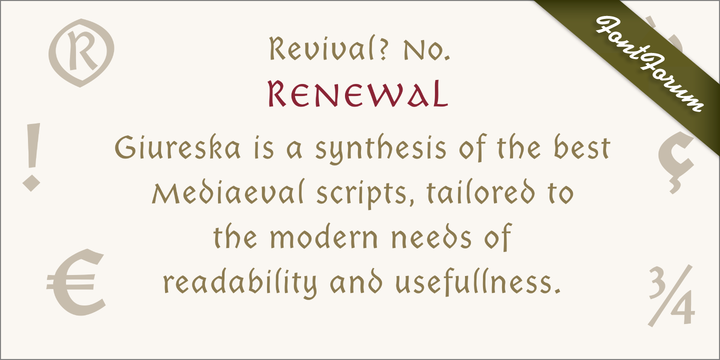
I always admired the beauty of Gothic letters, but lamented their low readability. The revivals of Gothic faces are beautiful, but they revive everything, including the traits that prevent readability. Blackletters are fine in ads and titles, but can’t be used in long texts (like books on Middle Ages, Medieval romances etc) where they would be the perfect historical choice. And I wanted to change this scenario. More…